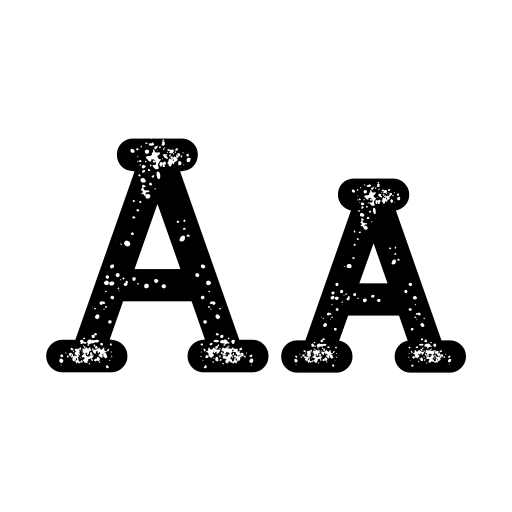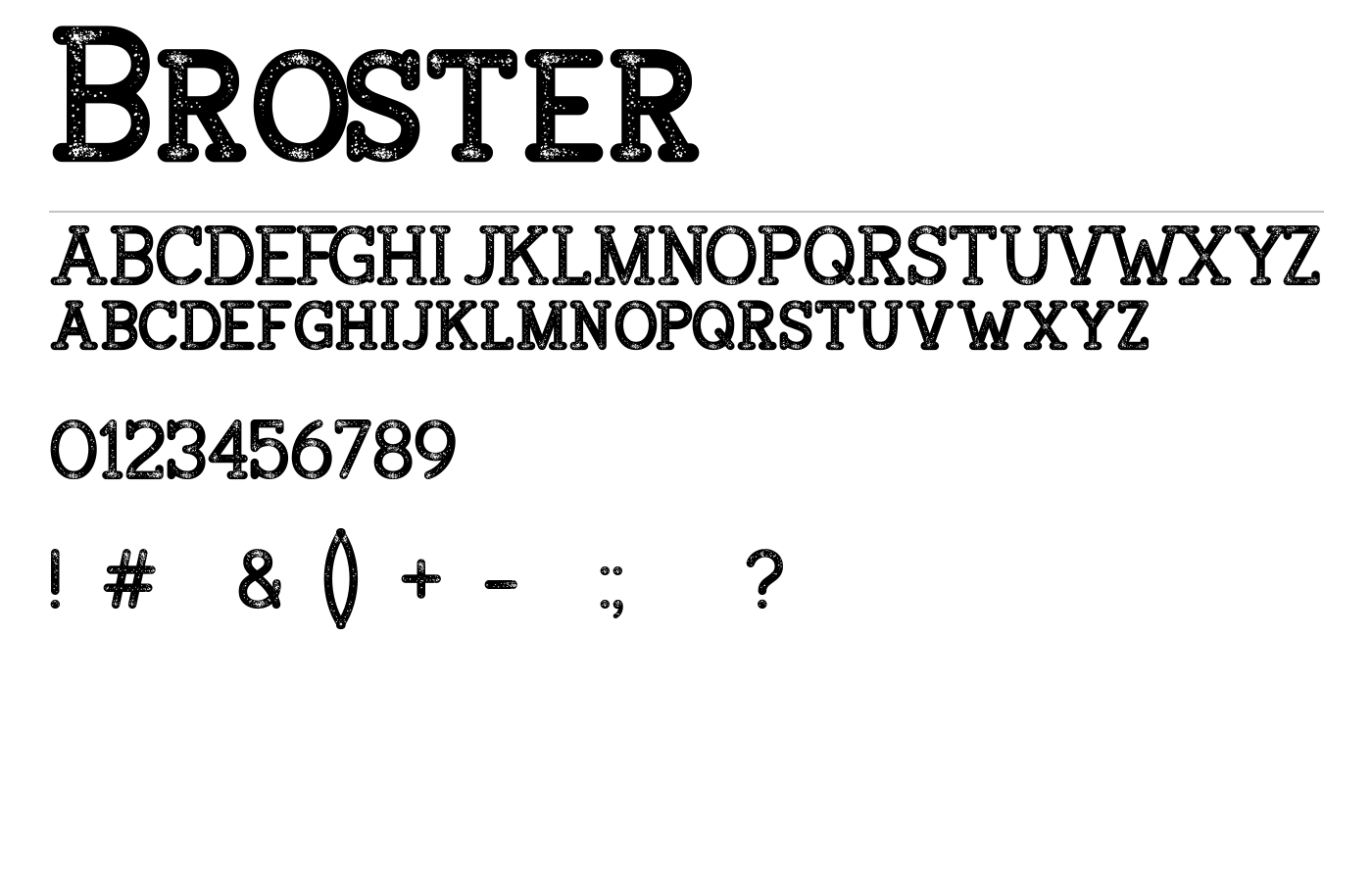
Broster is a bold slab serif font with a vintage, distressed texture that adds character and a worn, authentic feel. Its strong, bracketed serifs and uniform stroke weight make it ideal for impactful headlines or branding that seeks a rugged, retro charm with a touch of playfulness. This font works wonderfully for posters, logos, and packaging that want to evoke a sense of handcrafted quality and nostalgic appeal.
Broster Font
About Broster Font